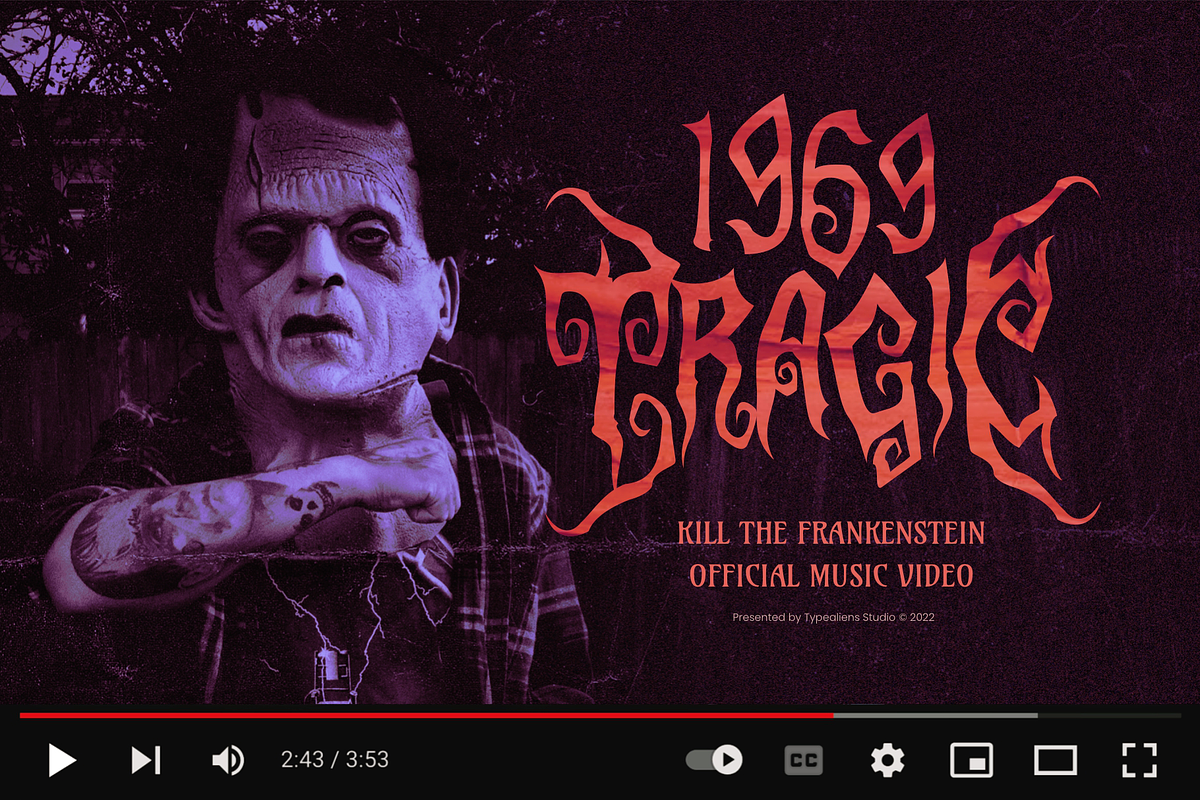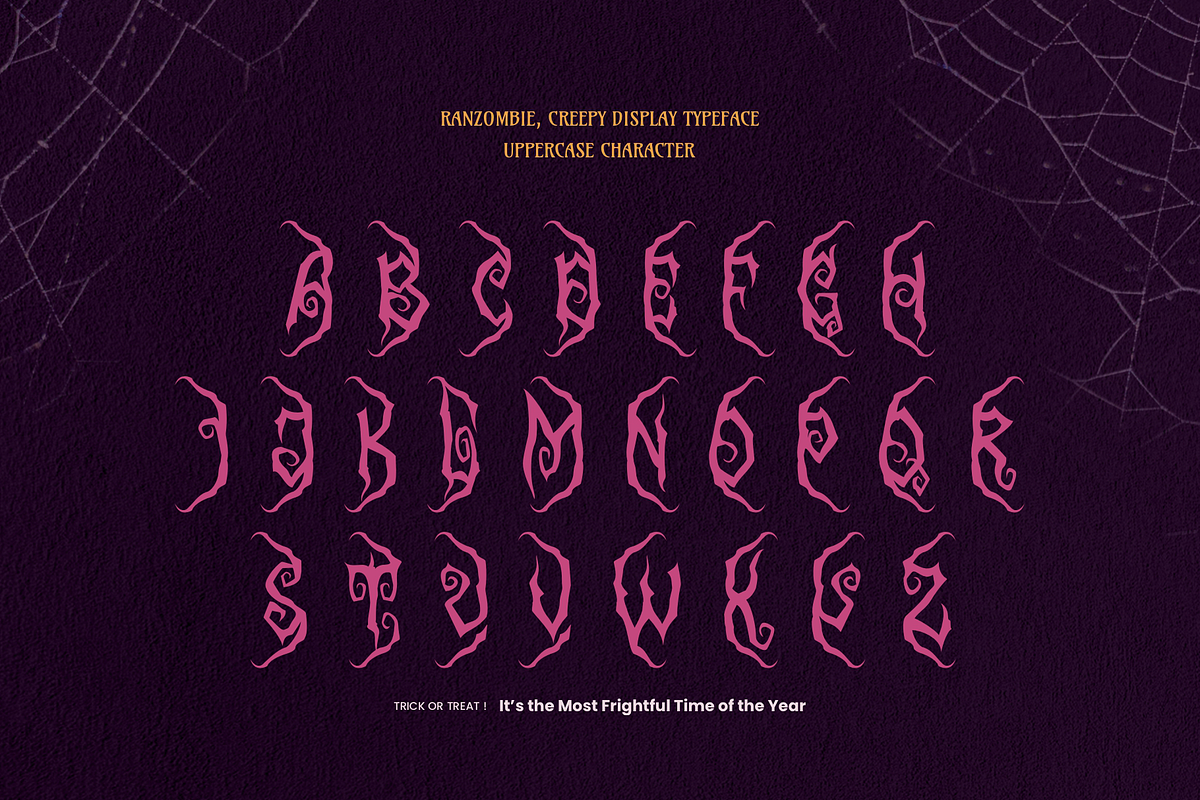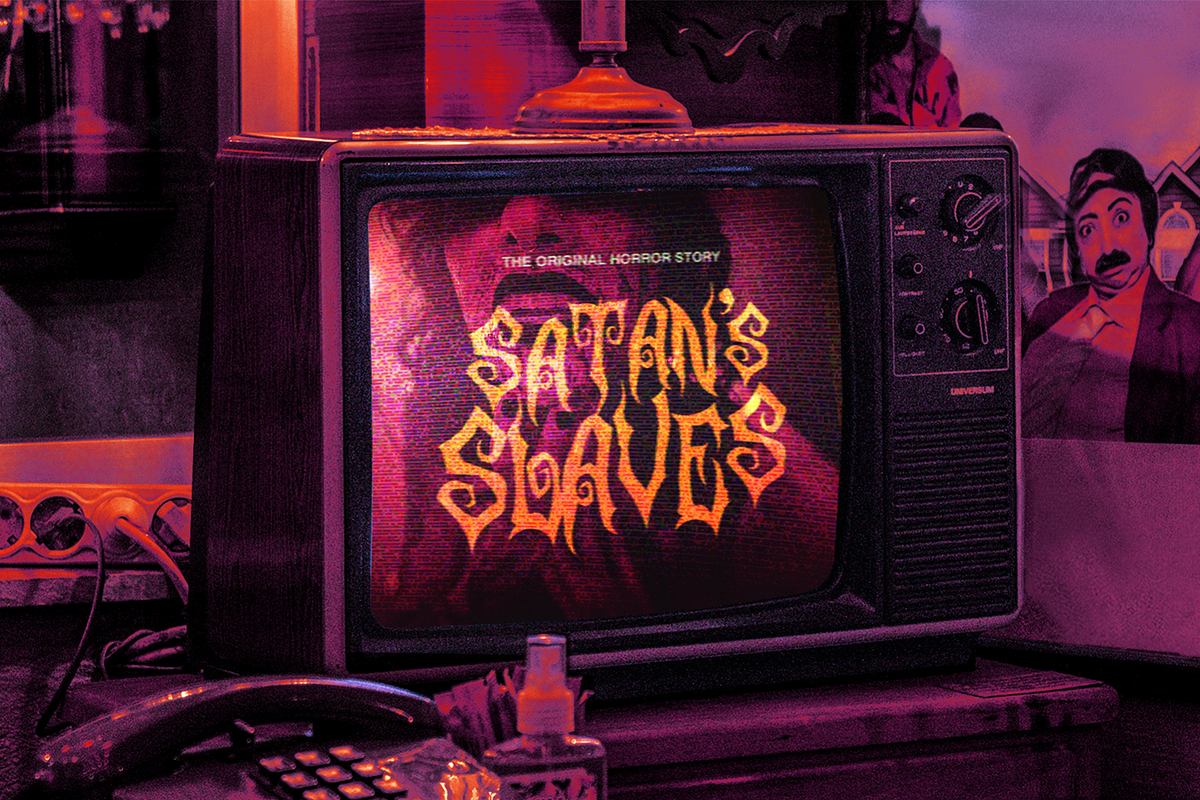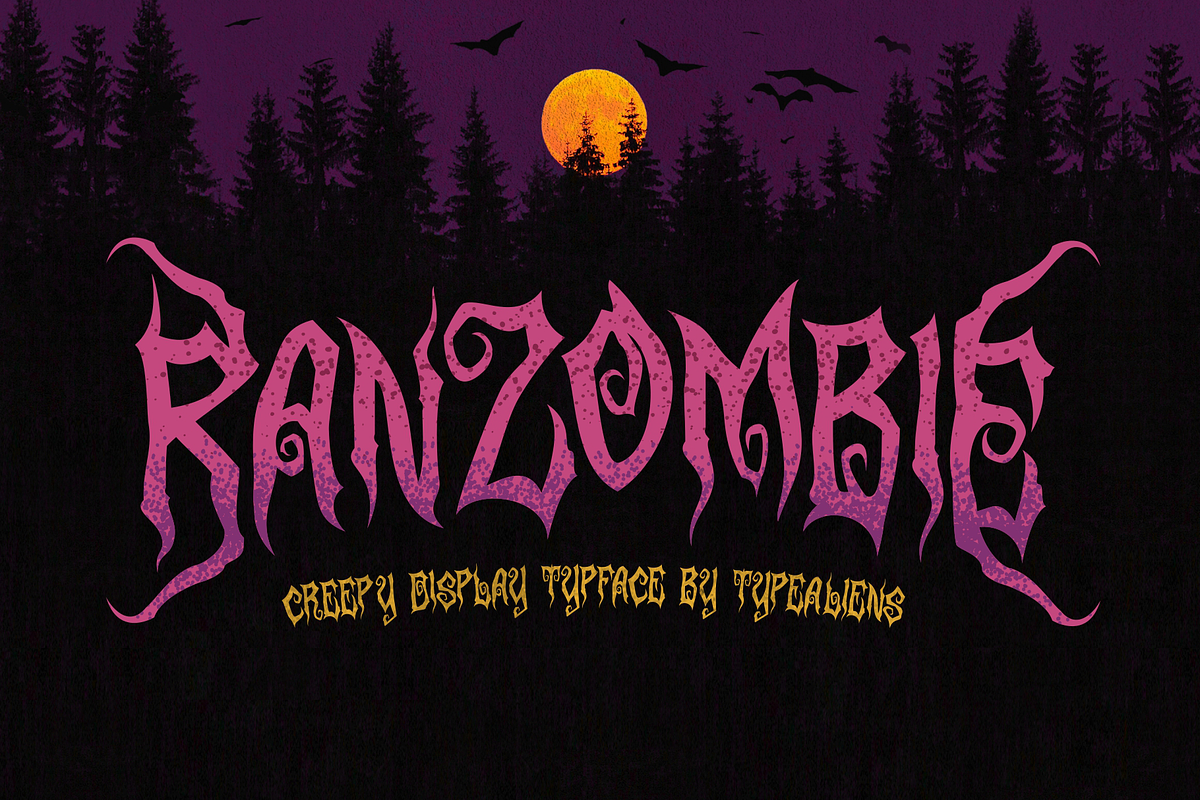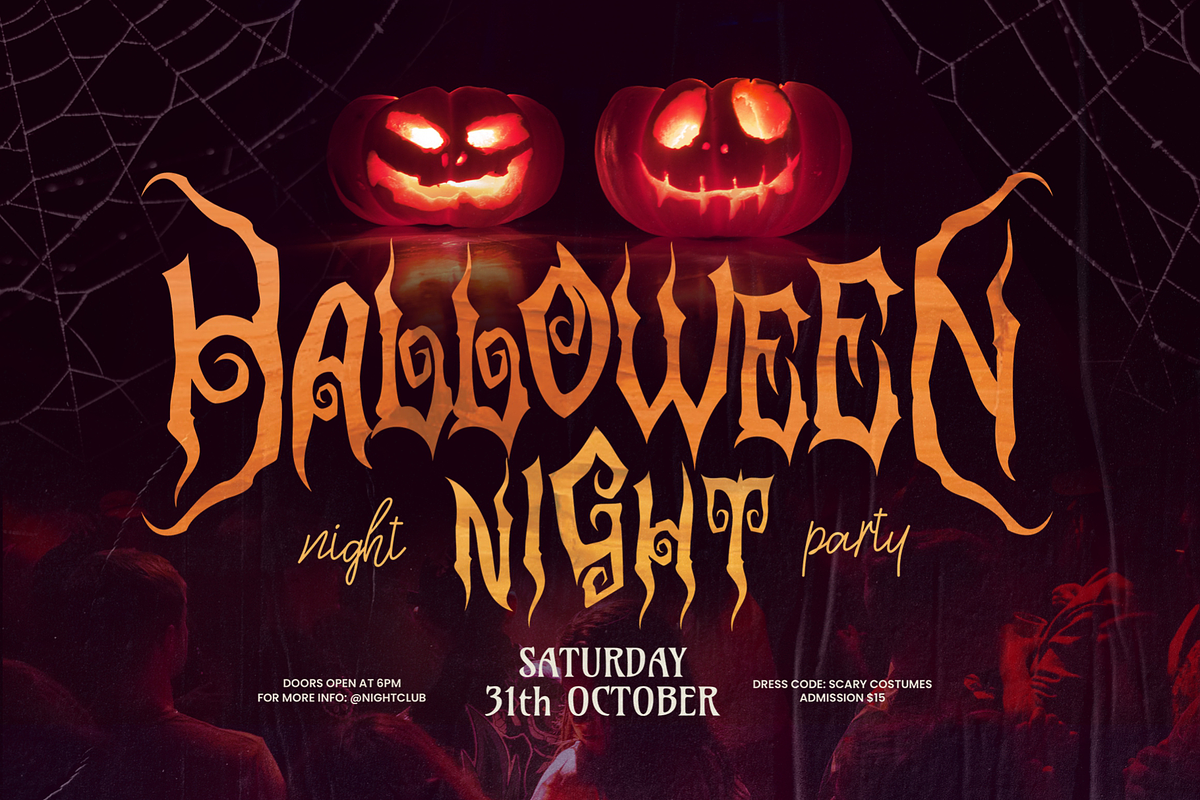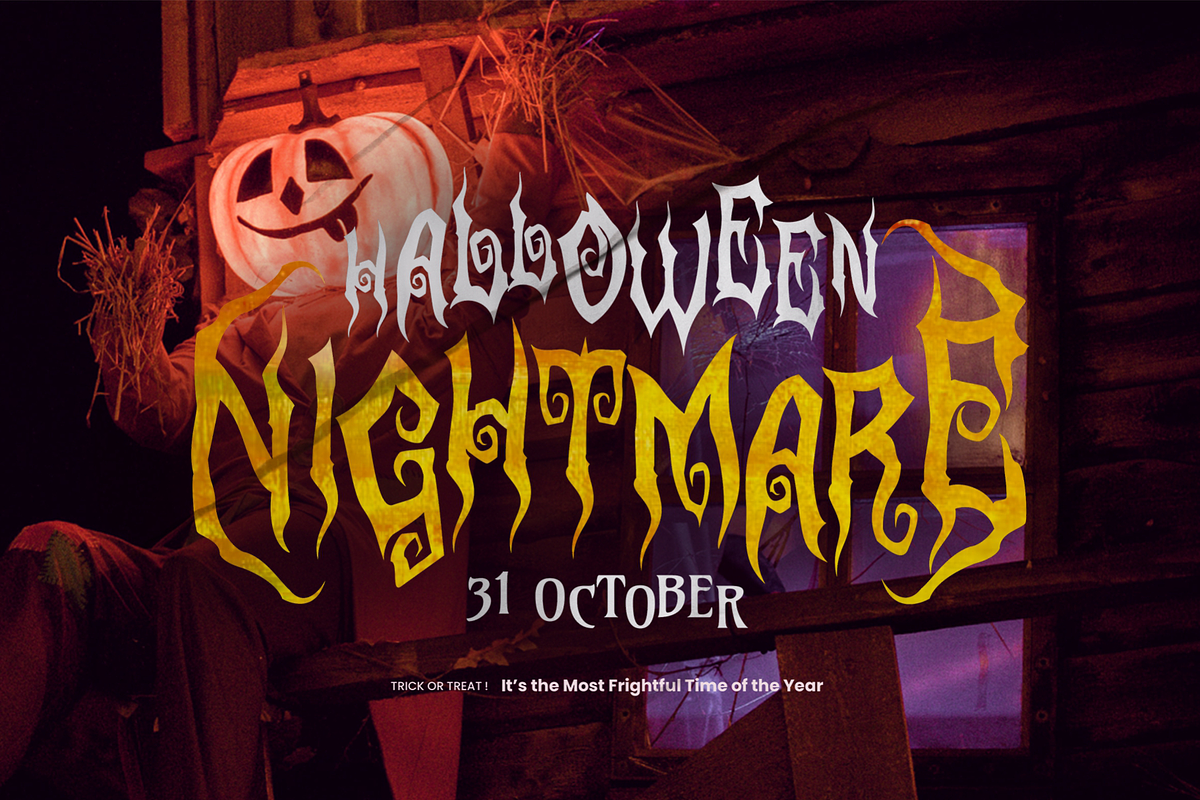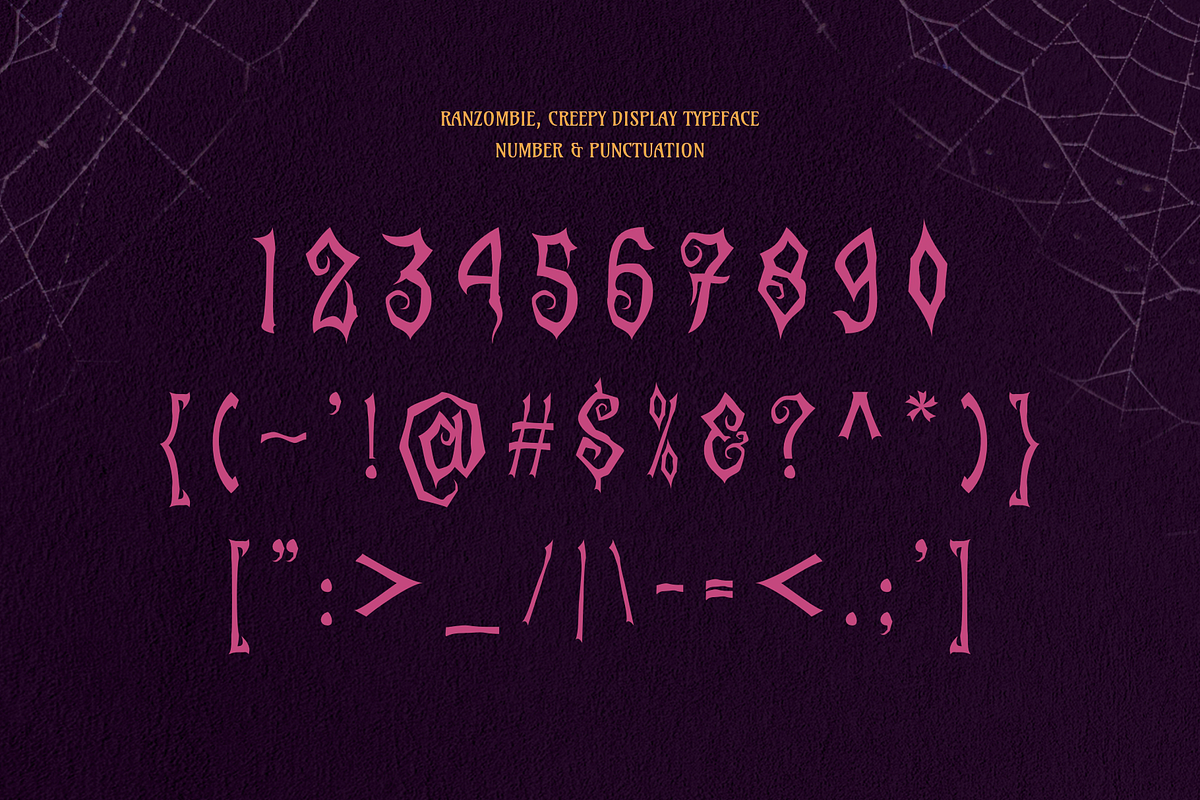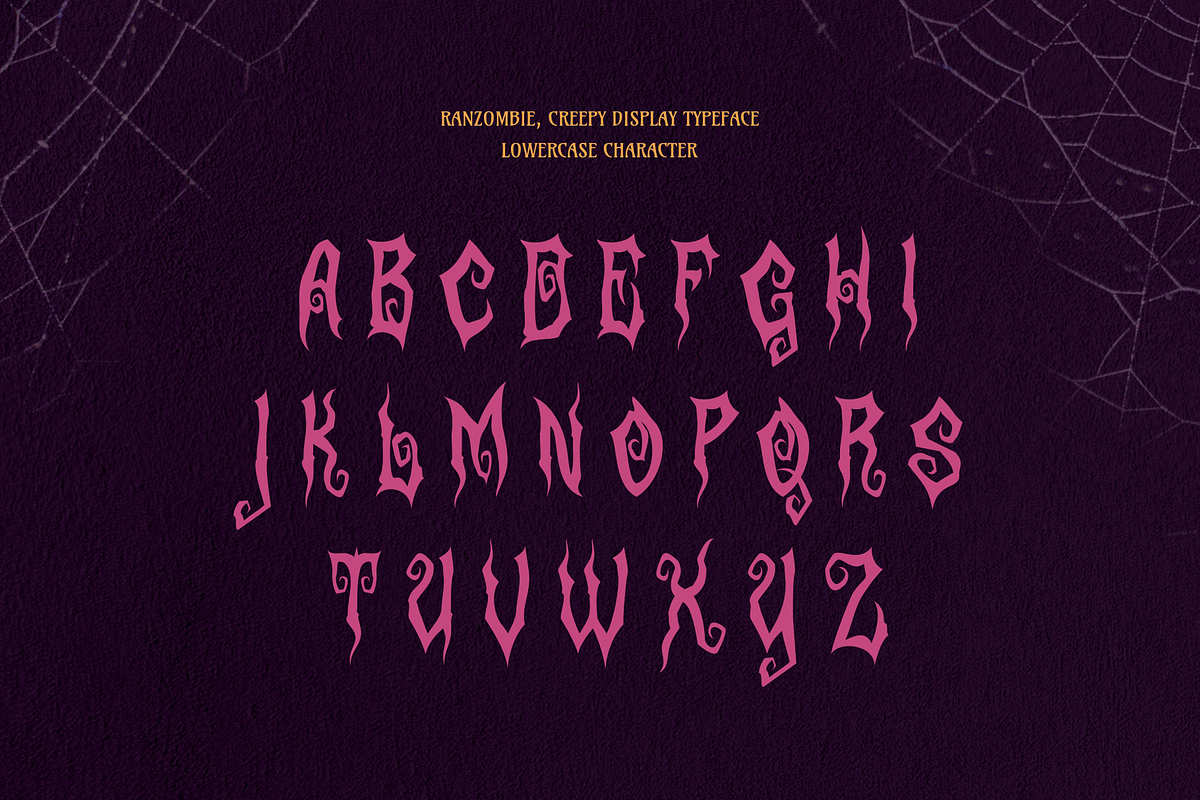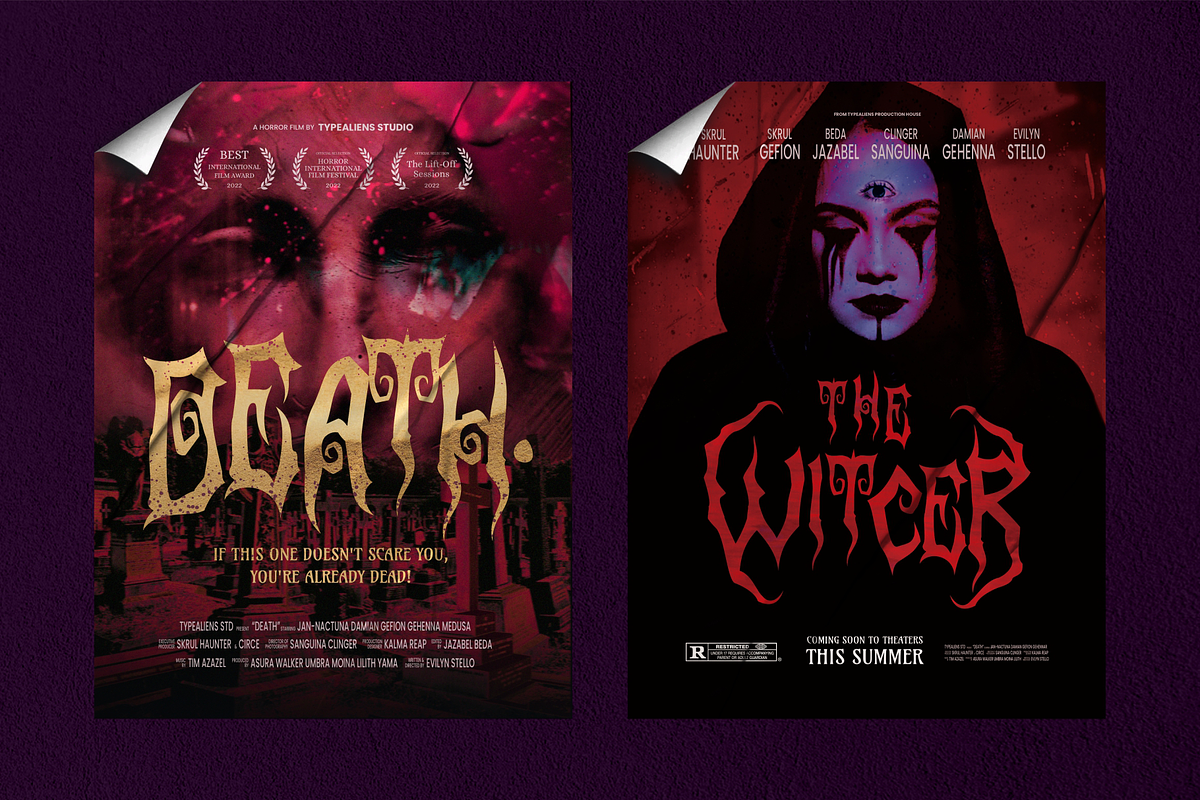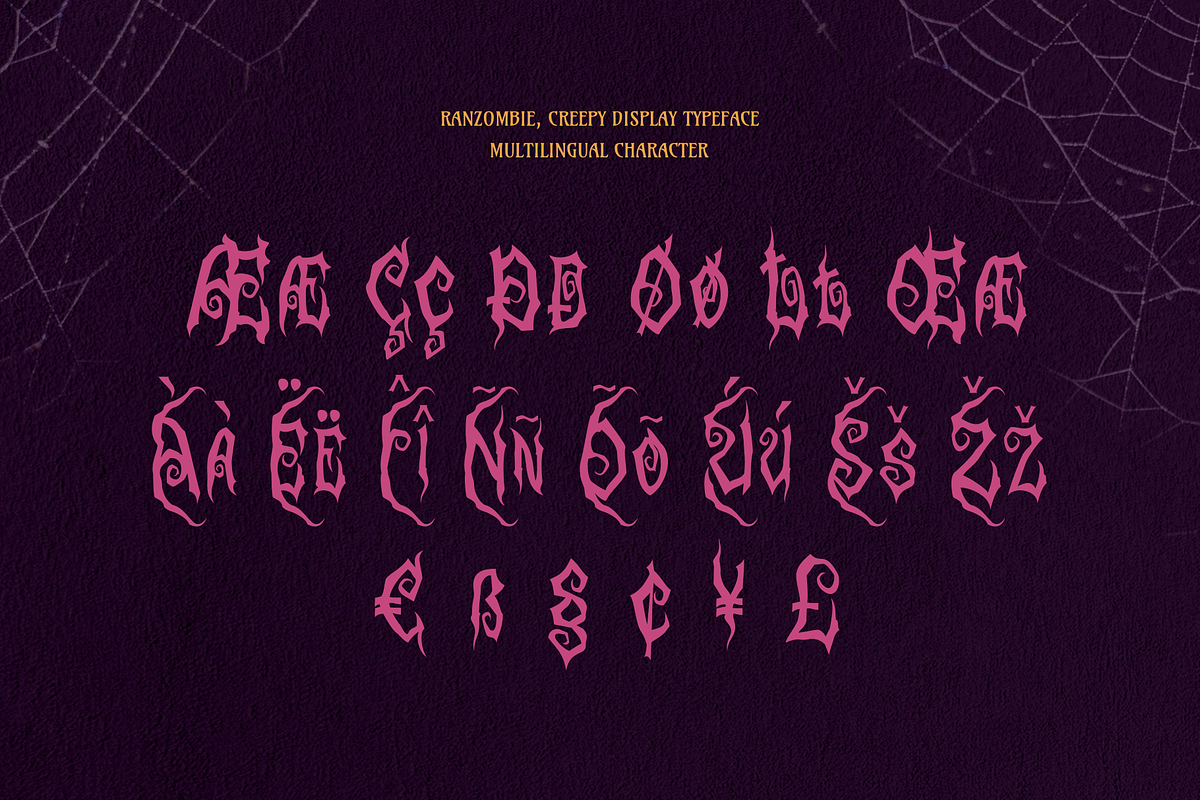
Ranzombie
RANZOMBIE
Ranzombie is a Halloween-style font, a horror font that can also be used to support a gothic design. A font that consists of all caps, a unique uppercase as a prefix and a suffix in the display font when you want to make it a headline, and lowercase is normal caps. This font is intended for horror films but can also be used for underground bands that are a bit simple.